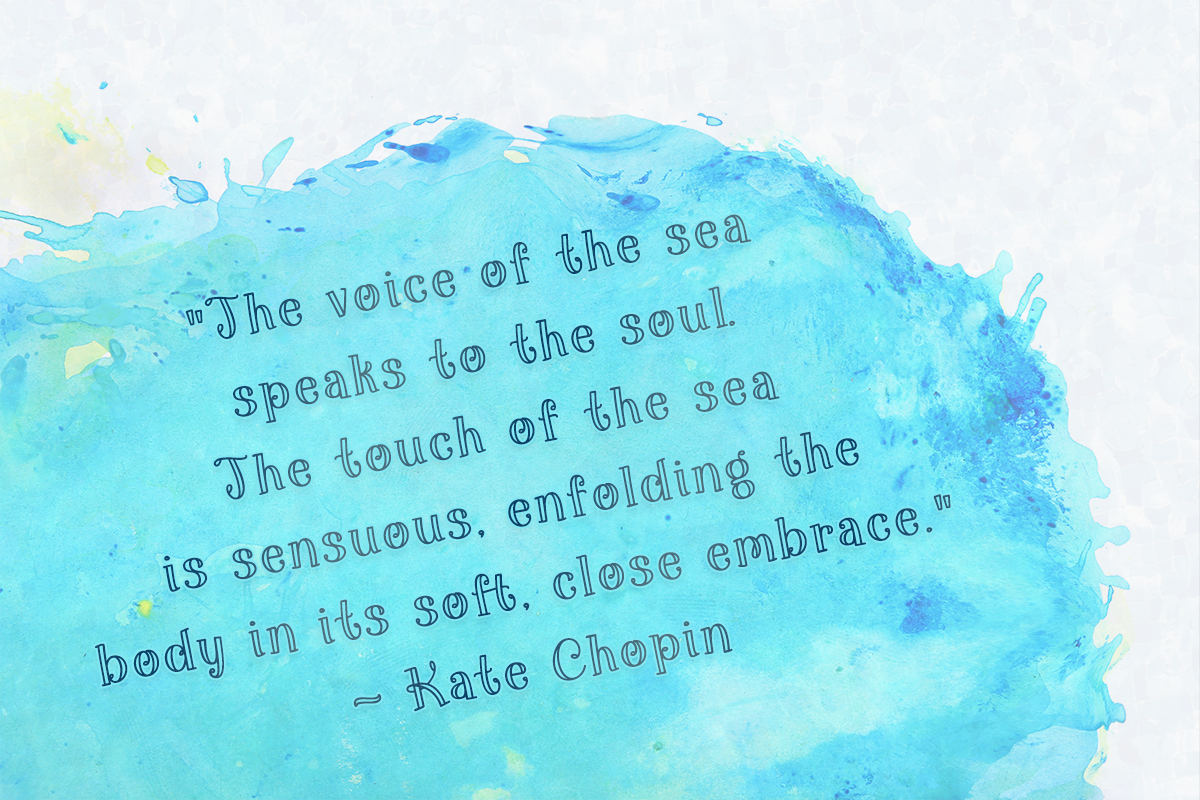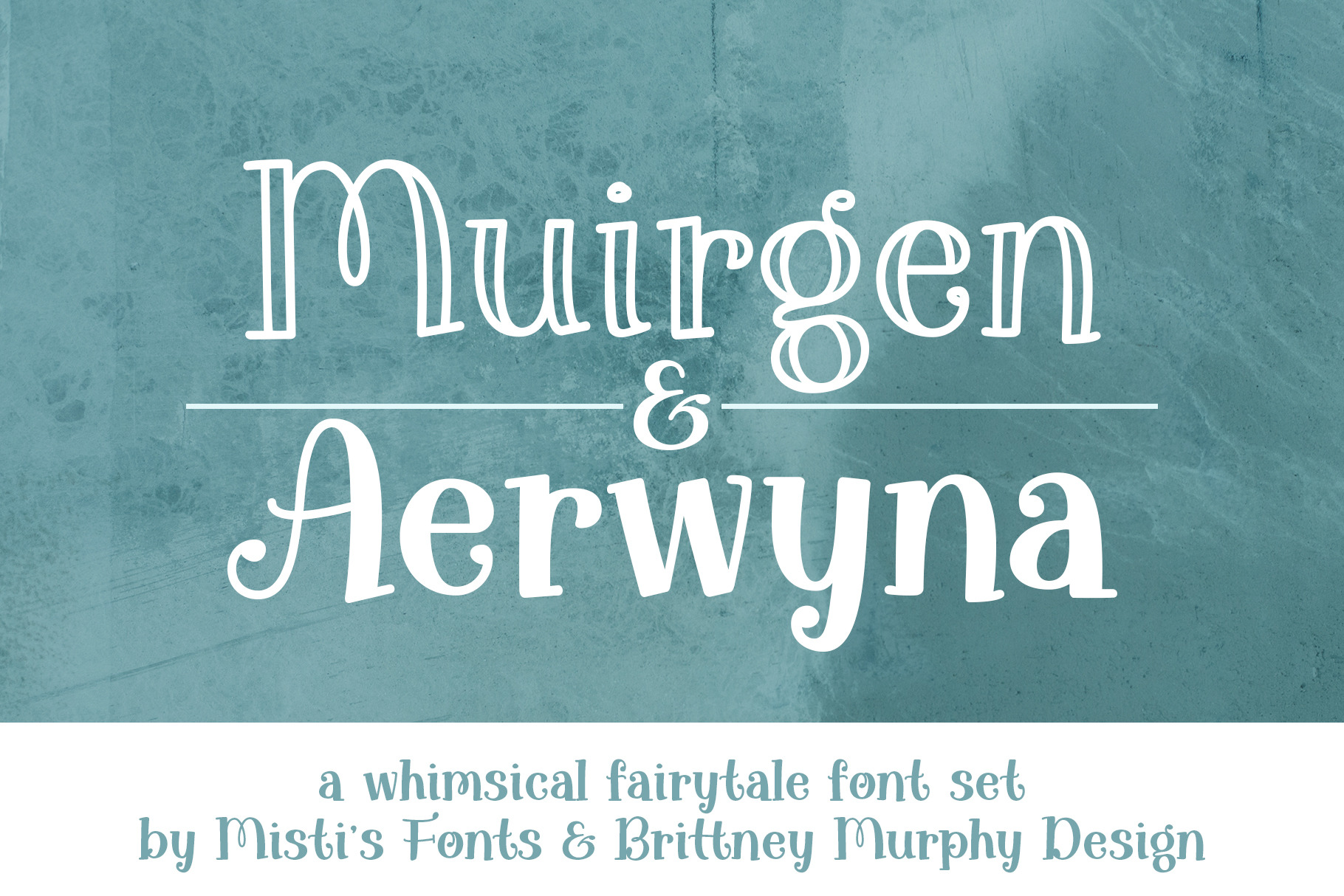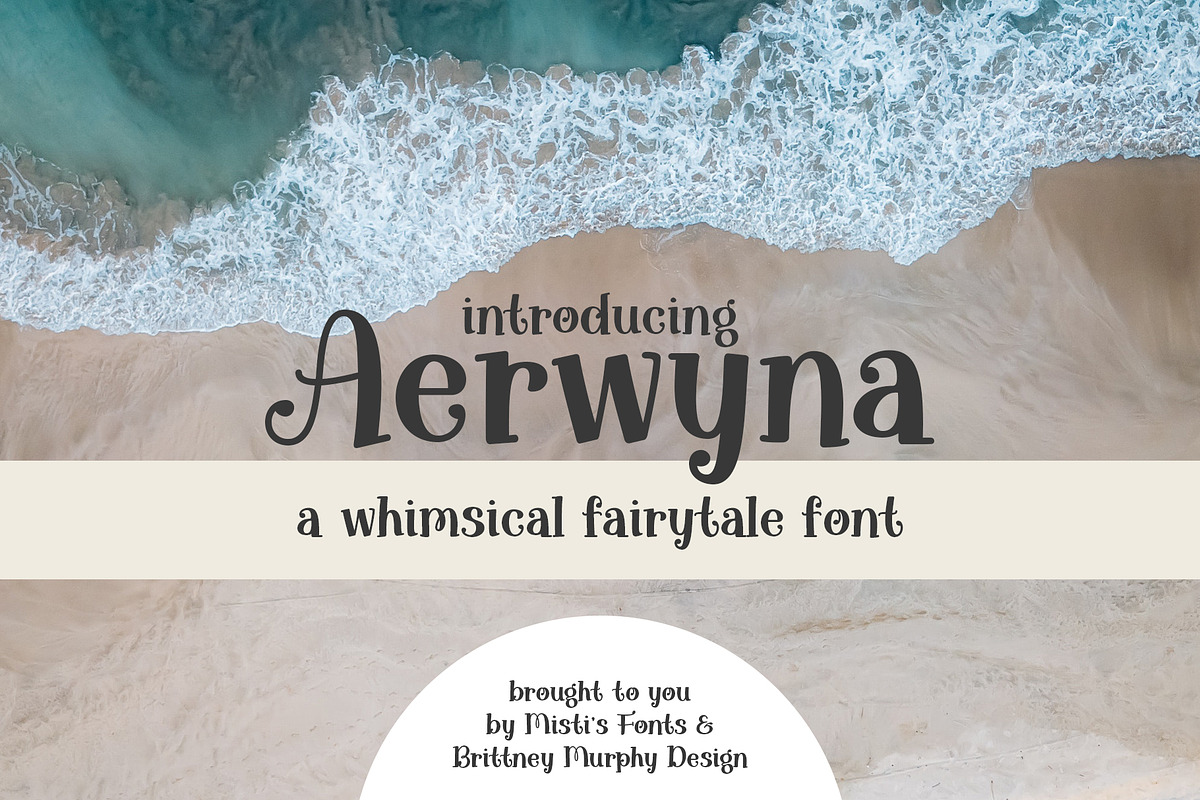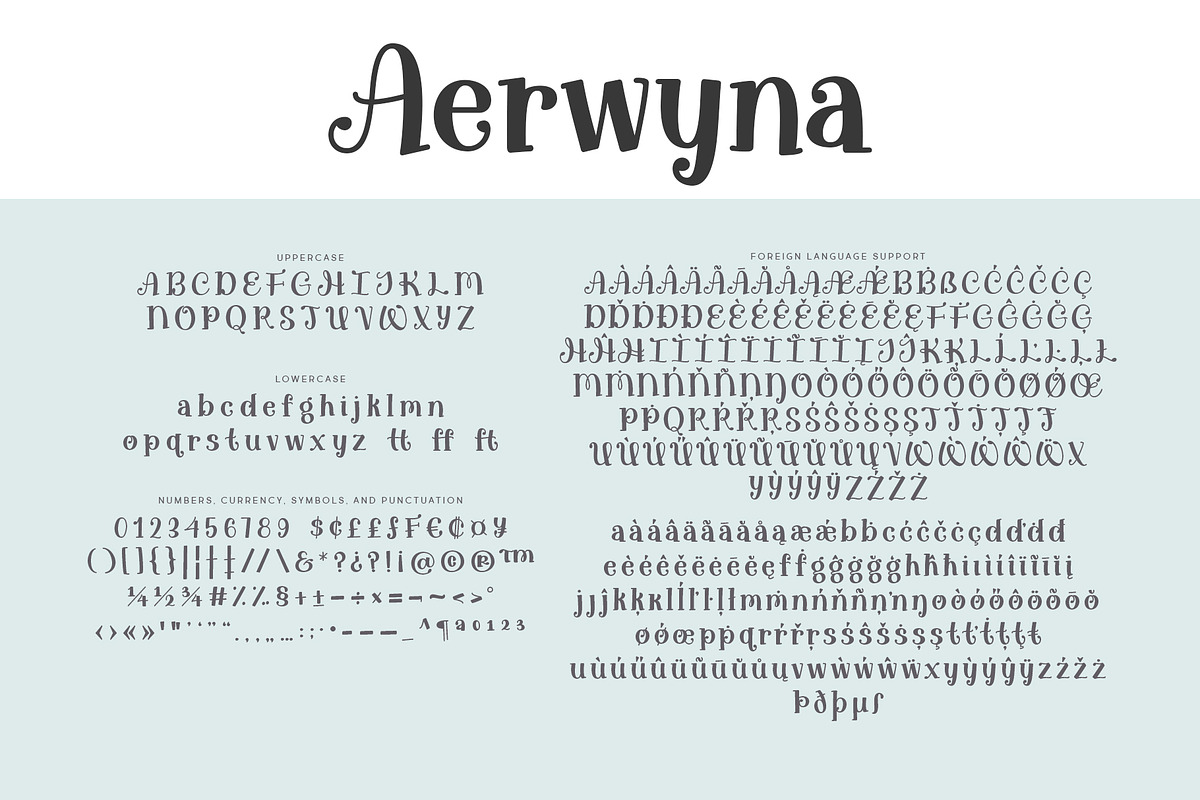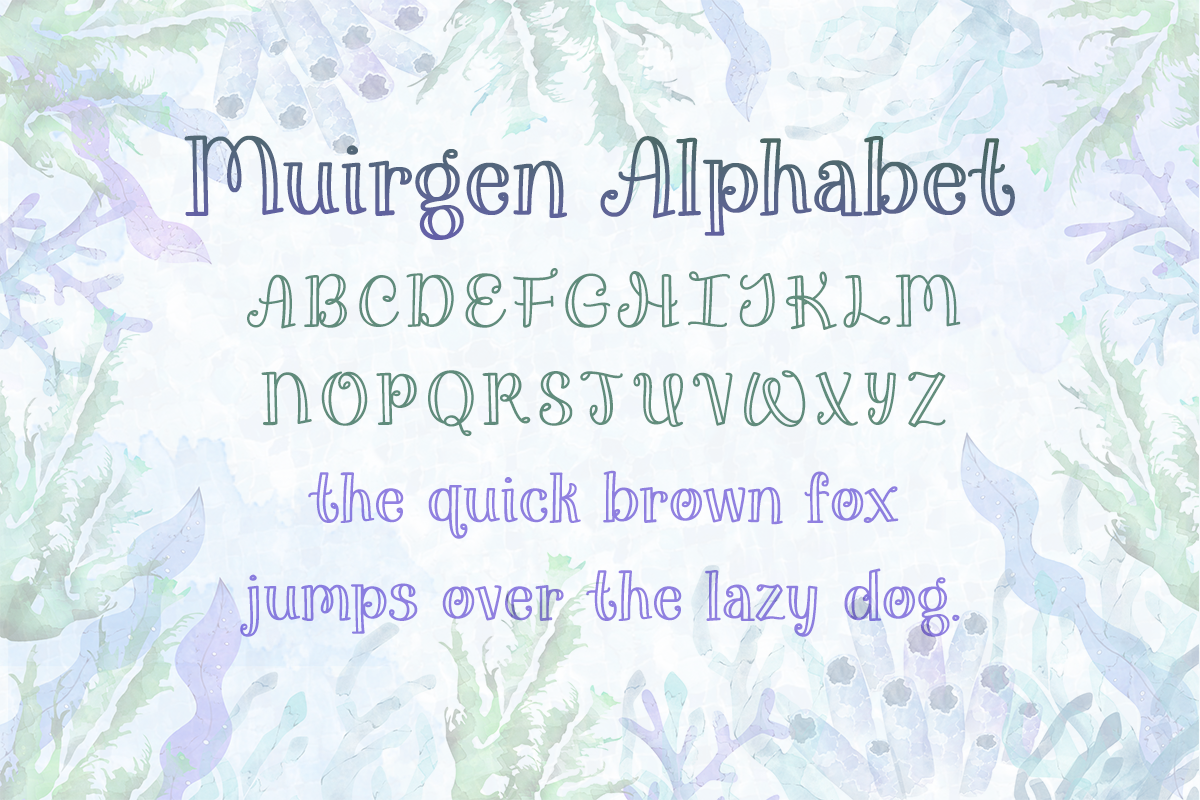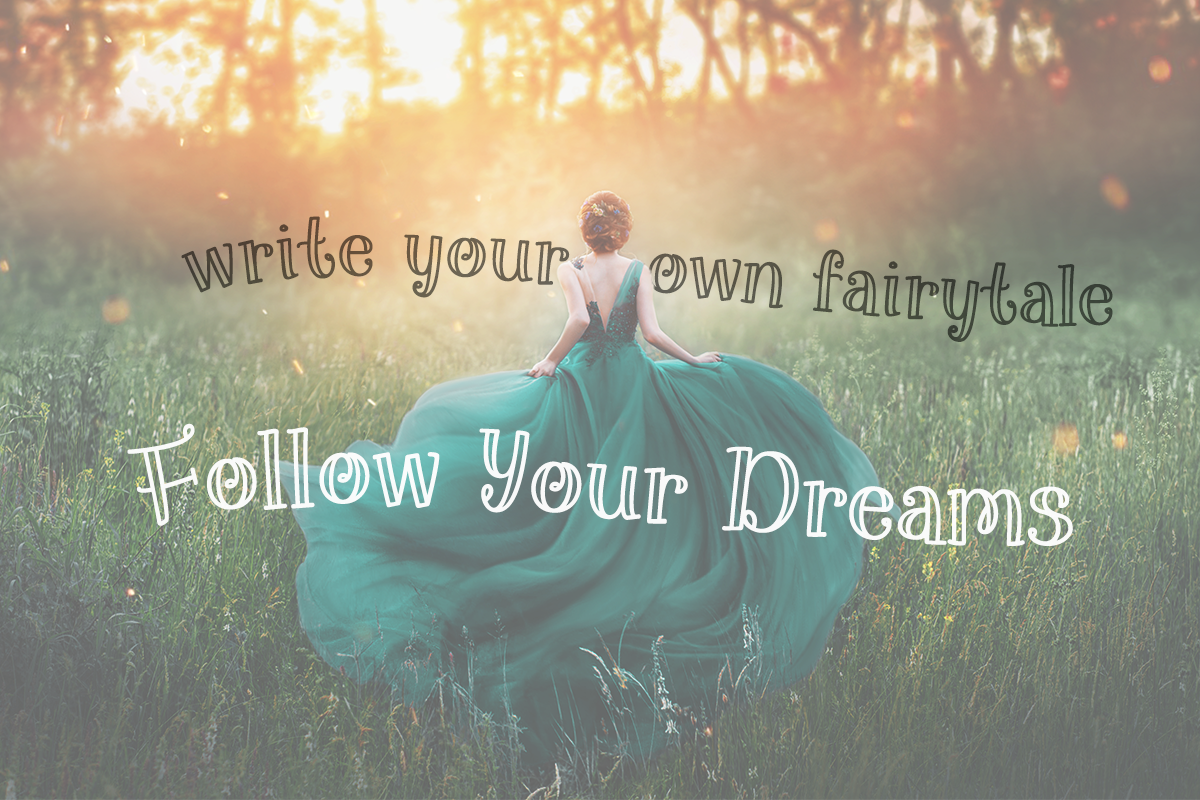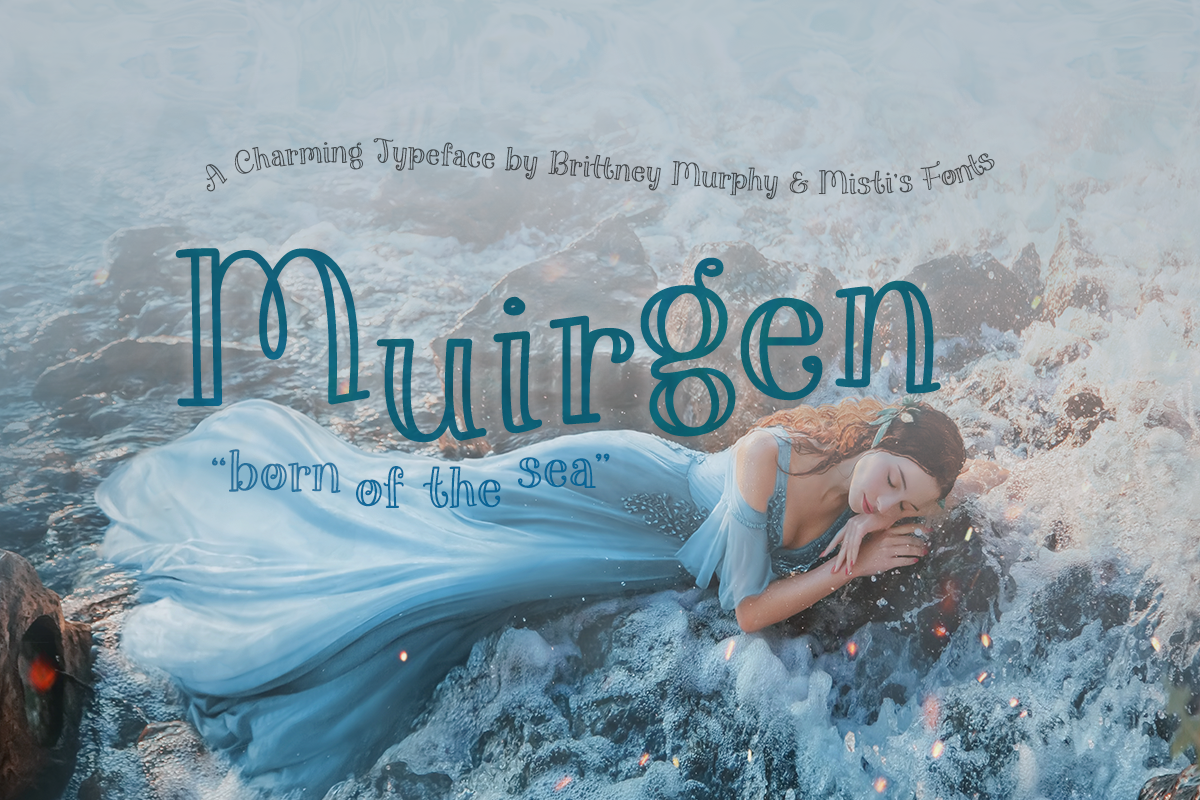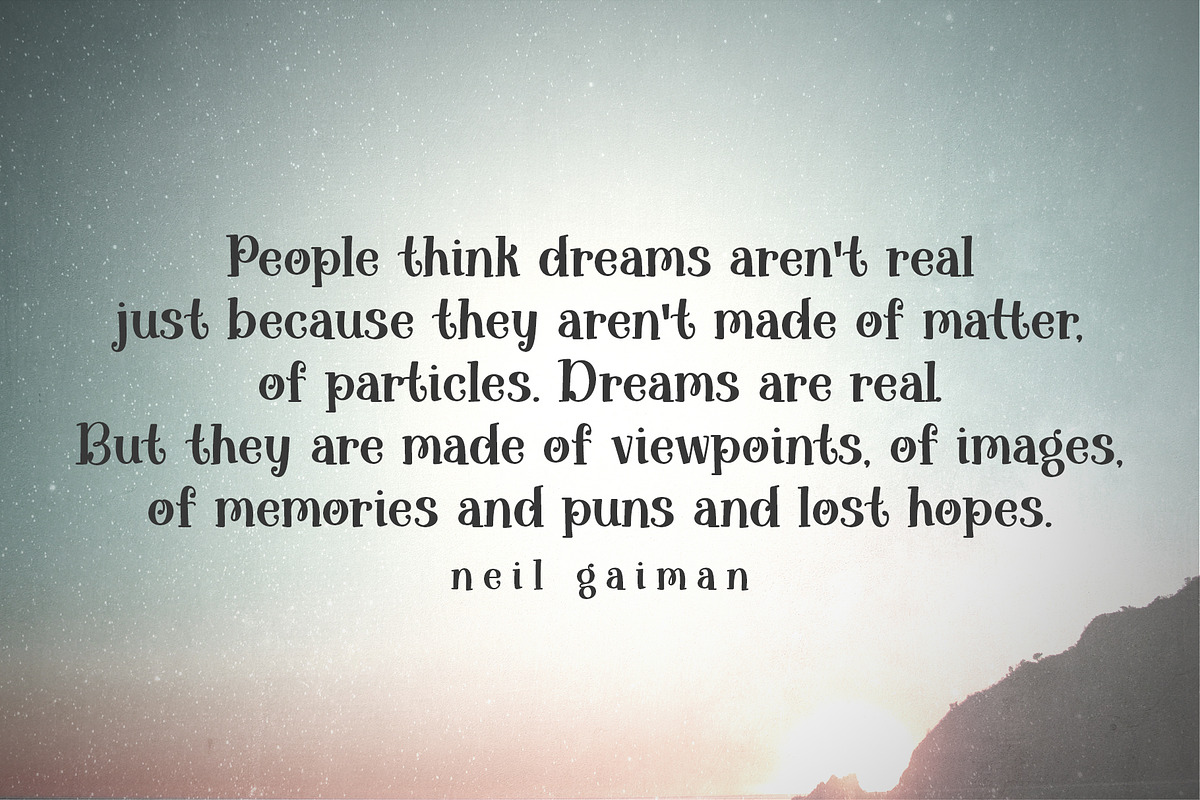
Muirgen & Aerwyna Font Duo
Muirgen and Aerwyna are a handdrawn serif font duo created in collaboration with Misti’s Fonts. Designed in a rustic, fairytale style, these fonts will add a touch of friendliness and whimsy to your design projects. Unique, yet highly legible, they can be used for headlines, bylines, or content alike.
Fun Fact! Misti chose the name Muirgen, which means born of the sea. I chose Aerwyna, not knowing until later that it means friend of the sea! :)